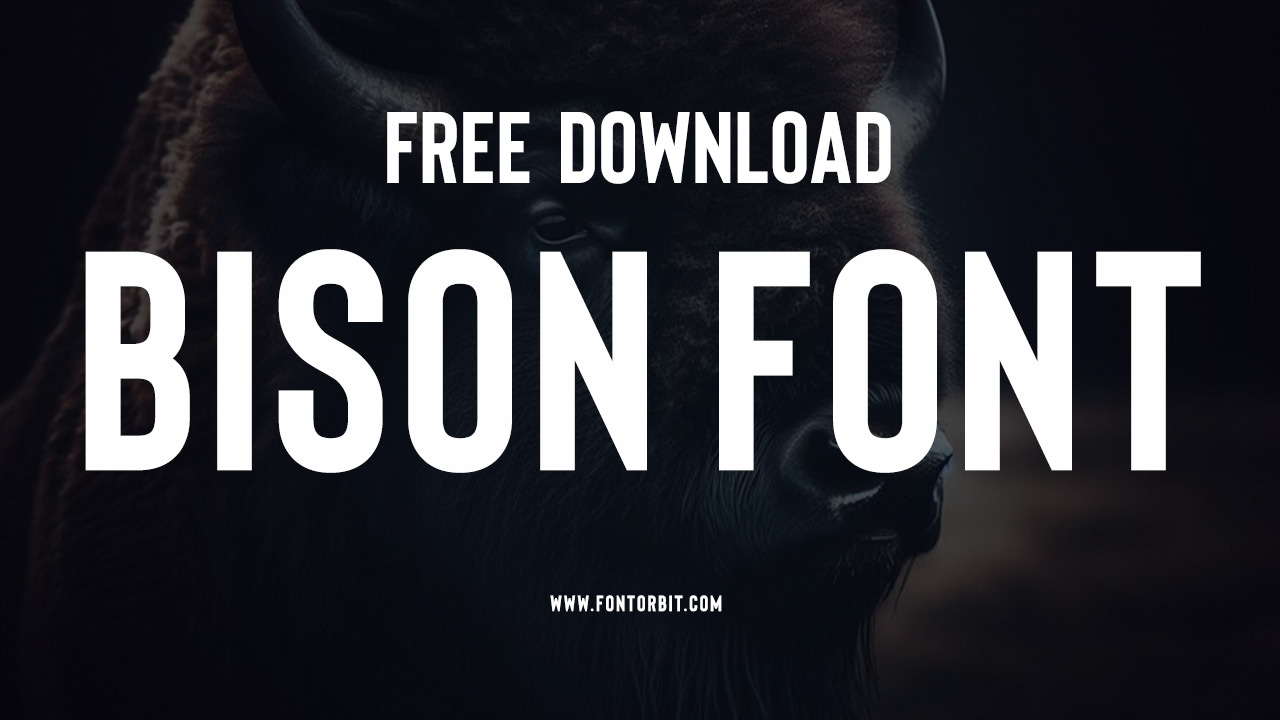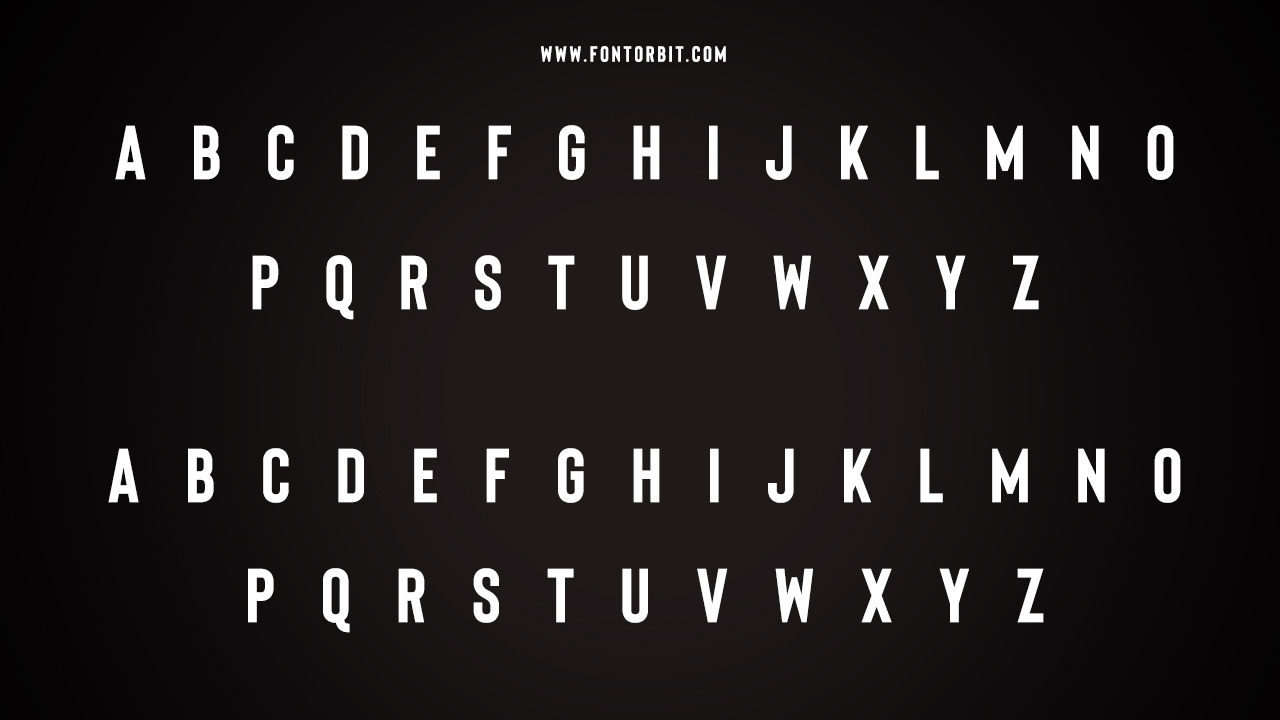
The Bison Font is a bold, strong, and modern sans serif typeface designed by Ellen Luff. Released in 2018, it has quickly become popular due to its clean lines and impactful presence.
Bison is versatile and works well in both digital and print media, ideal for branding and promotional content. With its carefully crafted geometric structure, the font carries a sense of power and precision, suited for various professional and creative uses.
Bison Font Family Includes
The Bison font family is robust and adaptable, offering a range of styles to suit different design needs. These styles range from thin and light to bold and heavy, making them flexible enough for various projects. Here’s a list of the main styles:
- Bison Bold
- Bison Regular
- Bison Demi Bold
- Bison Light Italic
- Bison Regular Italic
- Bison Thick Outline
- Bison Bold Itallic
- Bison Thin Outline
- Bison Thin Outline Itallic
- Bison Thick Outline Itallic
- Bison Demi Bold Itallic
- Bison Light
Notable Uses Of Bison Font
The Bison Font is often seen in promotional materials, branding, headlines, and packaging. It’s particularly effective for businesses looking to convey strength and reliability. It works well for:
- Corporate branding and identity
- Product packaging
- Magazine covers and headlines
- Advertising campaigns
- Sports logos and apparel
- Website headers
Bison Font’s clean, geometric lines make it ideal for high-impact designs that need to communicate clarity, strength, and modernity. It excels in environments where legibility and a bold statement are important, such as:
- Logos and branding
- Website headers and navigation
- Posters and flyers
- Business cards
- Brochures and booklets
- Product packaging
Bison Font is a powerful and flexible choice for any designer looking to make a bold statement. Its geometric structure and various styles make it a go-to for branding, headlines, and product packaging. Whether you’re working on a corporate brand identity or crafting an advertising campaign, Bison Font ensures clarity, legibility, and modernity.
4.What Is Bison Font Best Used For?
It is ideal for branding, headlines, and promotional materials.
7.Who Designed The Bison Font?
Ellen Luff is the designer of the Bison Font.
8.When Was Bison Font Released?
The font was released in 2018.
9.Is Bison Font Suitable For Print?
Yes, it works well in both print and digital media.
10.What Are The Design Principles Behind Bison Font?
Bison font is based on clean geometric shapes, emphasizing strength and clarity. It balances modernism with timelessness, making it ideal for both minimalist and impactful designs.